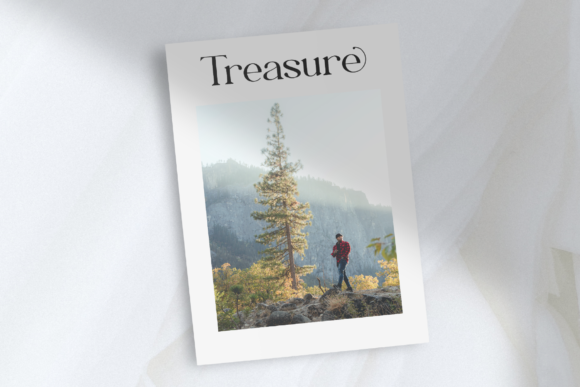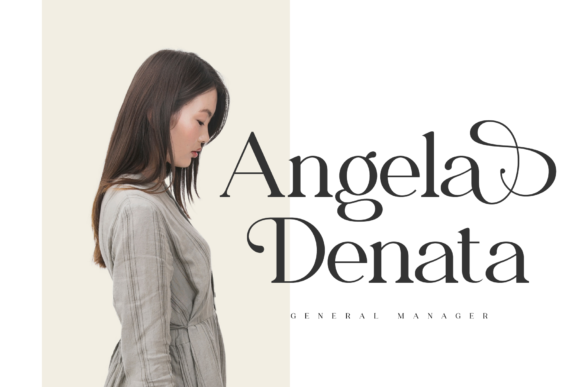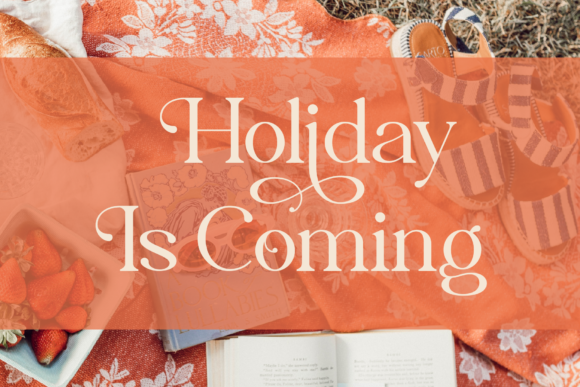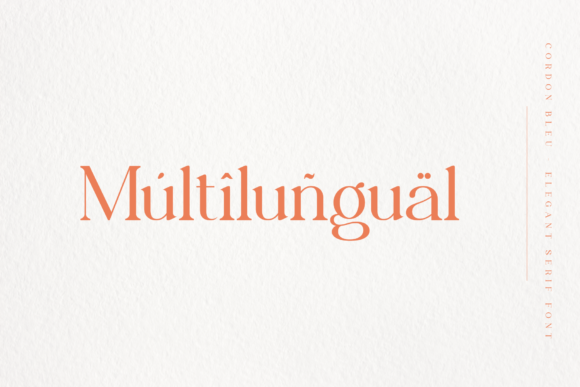
Cordon Bleu Font
Cordon bleu is a modern and elegant serif font with an elegant shape and unique characters. Use it for branding, logo designs, magazines, posters, Instagram feeds, and more. This font is PUA encoded which means you can access all of the glyphs and swashes with ease!